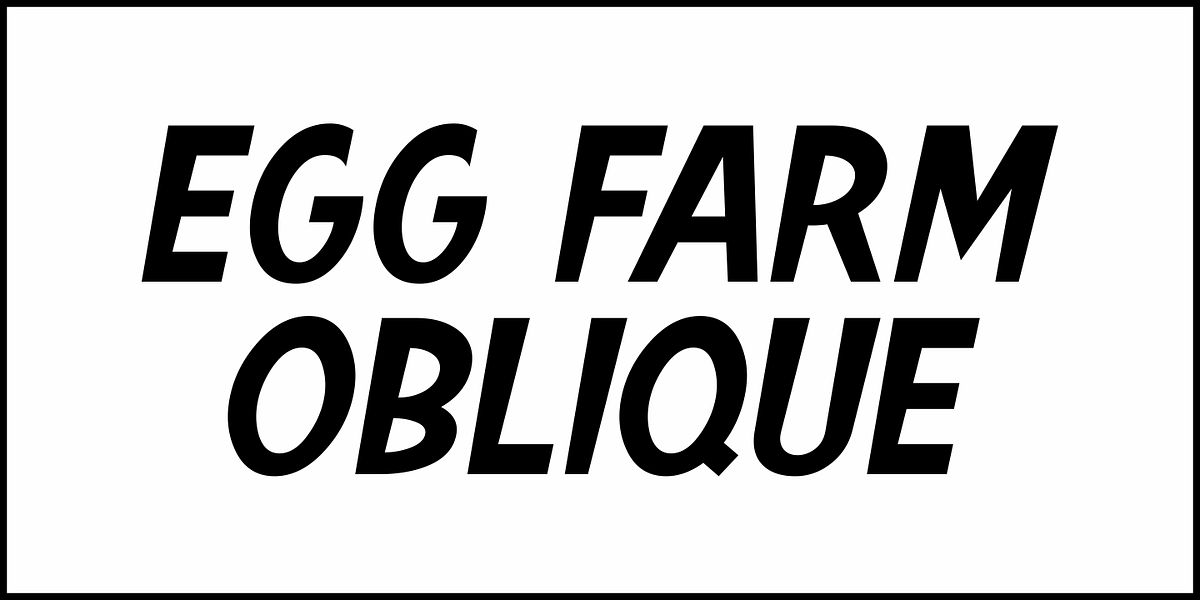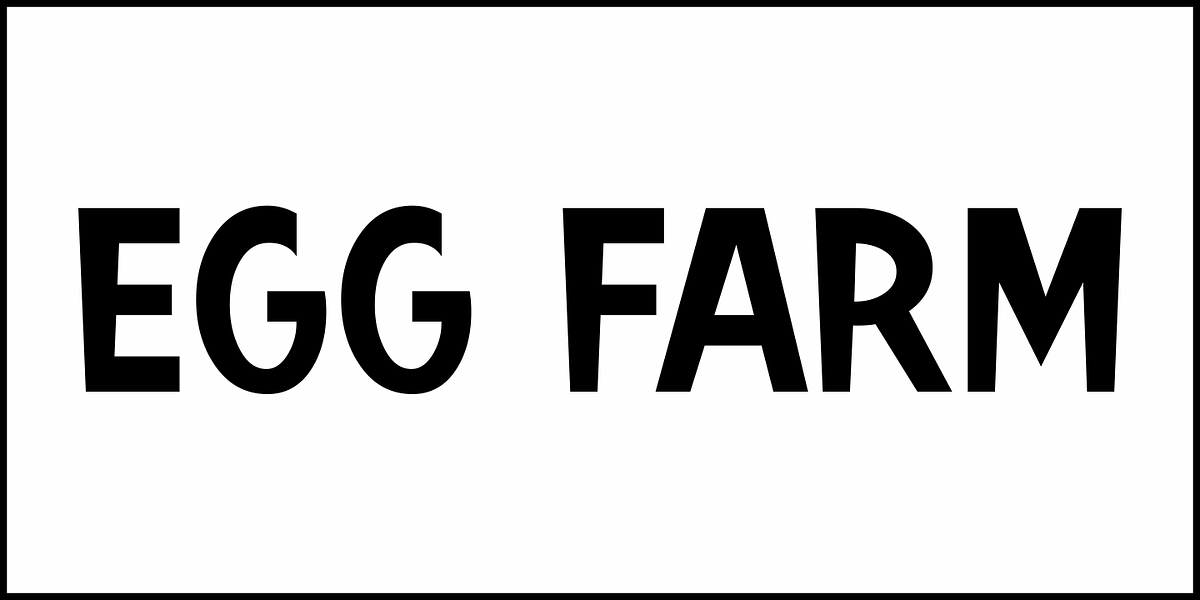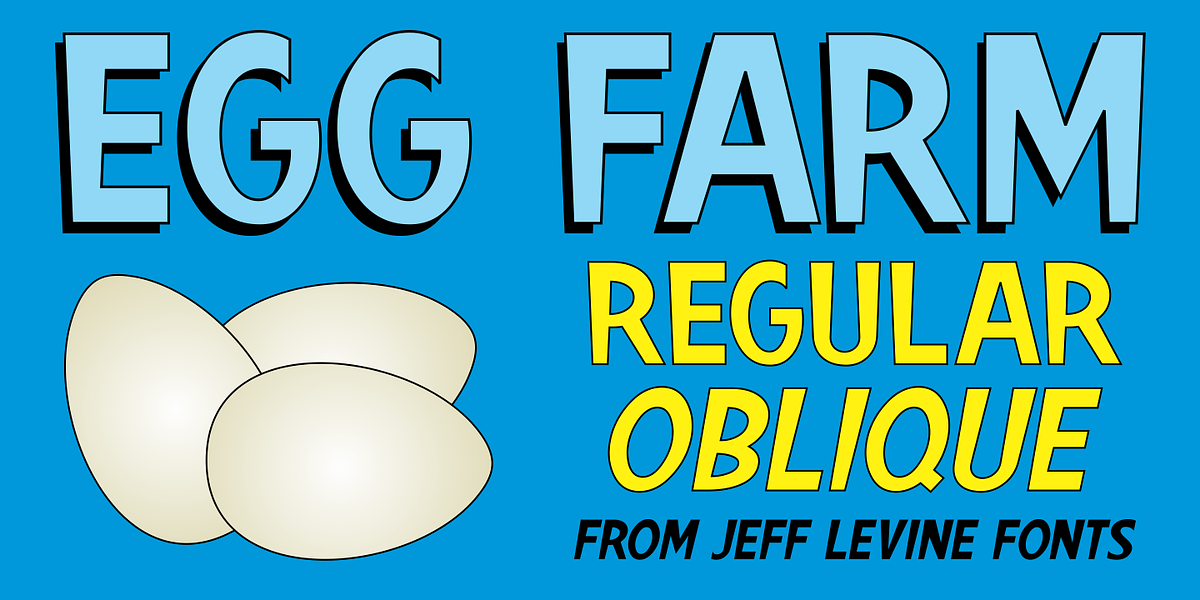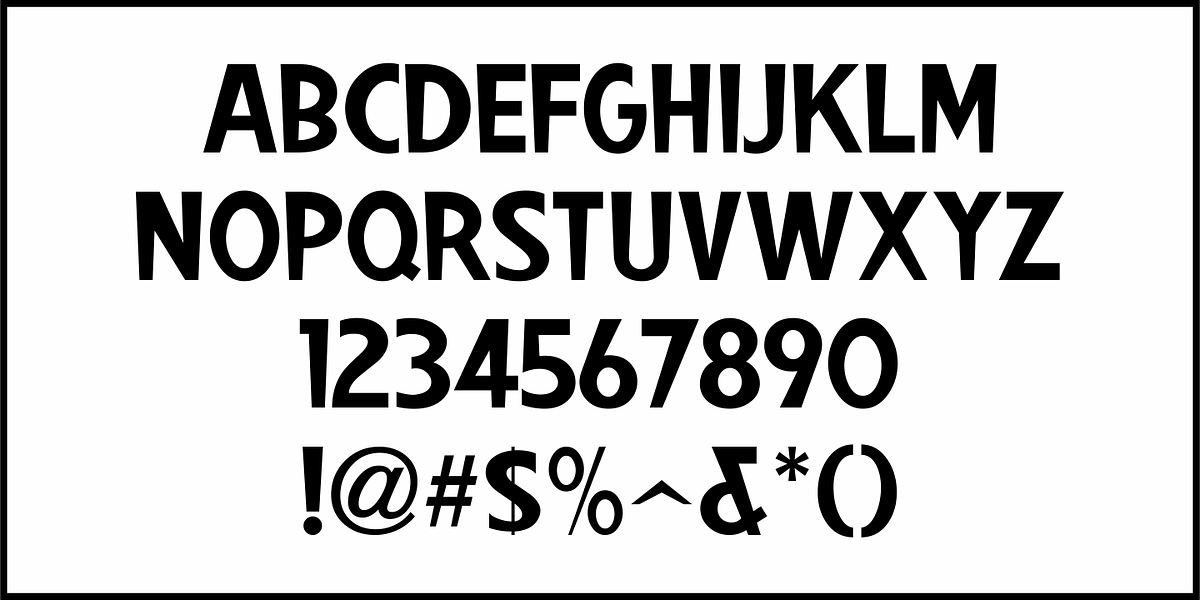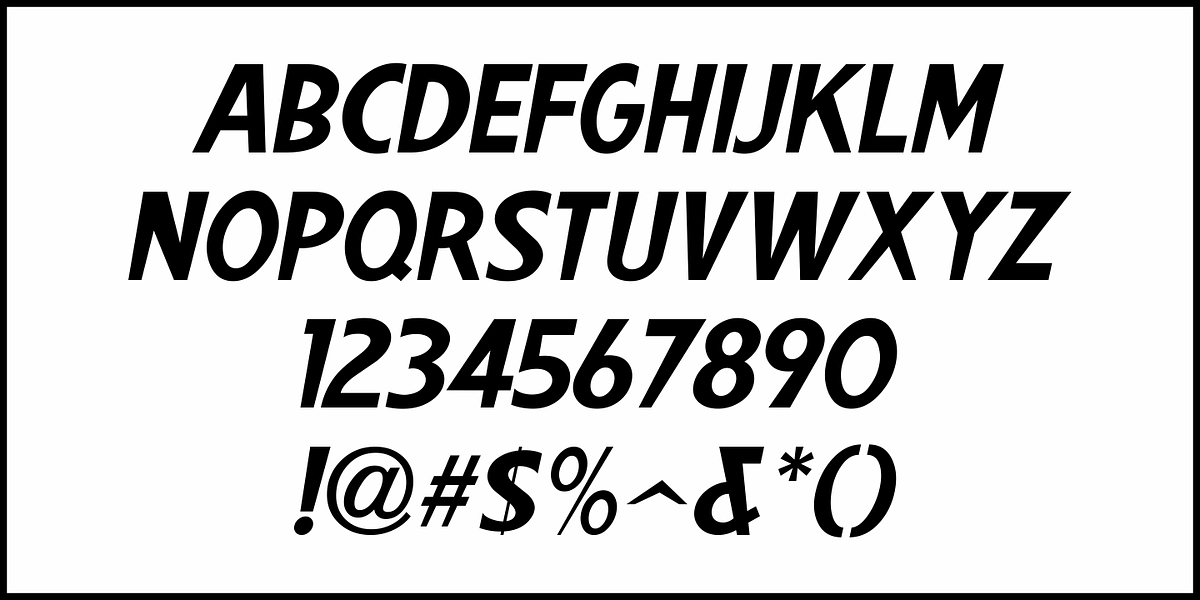
Egg Farm JNL
The opening titles and credits of the 1947 film comedy “The Egg and I” were done in a hand lettered casual sans serif typeface which inspired the digital font Egg Farm JNL; available in both regular and oblique versions.